Best St. Patrick’s Day Fonts for Canva in 2026
St. Patrick’s Day design has a look all its own: rich greens, gold accents, pub-inspired textures, Celtic details, and cheerful typography that feels festive without becoming chaotic. If you are searching for the best St. Patrick’s Day fonts for Canva, the goal is simple: choose fonts that feel Irish-inspired, readable, and flexible enough for posters, invitations, social media graphics, menus, and themed merchandise.
The best St. Patrick’s Day fonts for Canva usually fall into four directions: Celtic-inspired, vintage pub serif, playful handwritten, and bold display. For Canva users, there are two practical paths. You can use fonts already available in Canva’s library, or, if you use Canva’s Brand Kit features, you can upload premium fonts for more distinctive holiday designs. Canva’s Help Center confirms that font upload is a premium Brand Kit feature.
In this guide, you will find the best St. Patrick’s Day fonts for Canva in 2026, plus use-case recommendations, pairing ideas, and tips for designing festive layouts that still feel polished.
Quick Answer: What Are the Best St. Patrick’s Day Fonts for Canva?
The best St. Patrick’s Day fonts for Canva combine festive personality with strong readability. For posters and pub-themed graphics, bold serif and display fonts usually work best. For invitations and greeting cards, handwritten and script fonts add warmth. For branded seasonal content, pairing one expressive headline font with one clean supporting font usually creates the strongest result.
Some of the best premium options for Canva users include John Mayer, Catchy Mager, Campaign Serif, Valeska, Darling, Salute, Wishful, Quinnie, Banera, and Black Magic. These work especially well when uploaded into Canva for holiday campaigns, themed promotions, and social content. If you need a native Canva option, look for decorative serif, handwritten, or festive display fonts inside Canva’s font library, since Canva also offers St. Patrick’s Day templates across cards, posters, and seasonal layouts.
Top St. Patrick’s Day Fonts Canva Designers Can Use in 2026
John Mayer
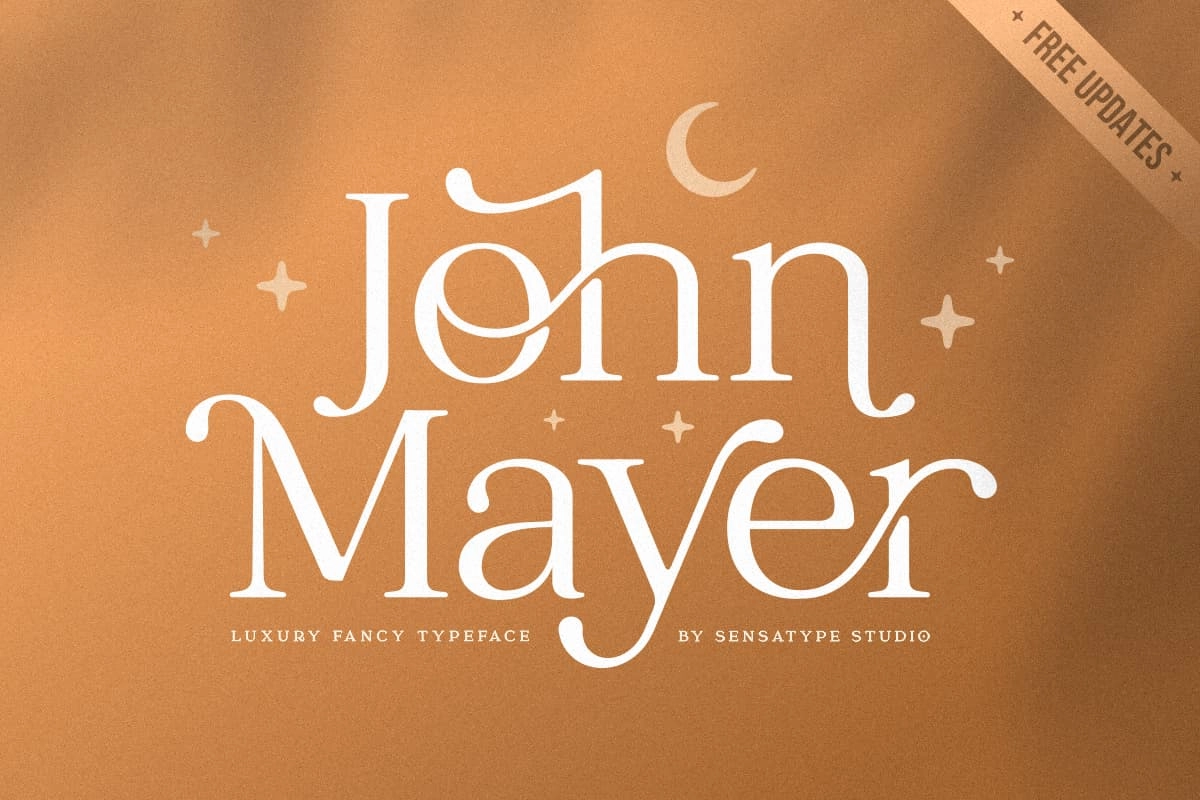
John Mayer is a refined serif font with a classic structure that feels timeless and dependable. It works especially well for pub menus, event posters, and restaurant promotions where you want elegance without losing readability.
Best for: pub promotions, Irish-themed menus, signage
Why it works: its serif structure gives it a heritage-driven tone that suits traditional St. Patrick’s Day visuals.
Catchy Mager
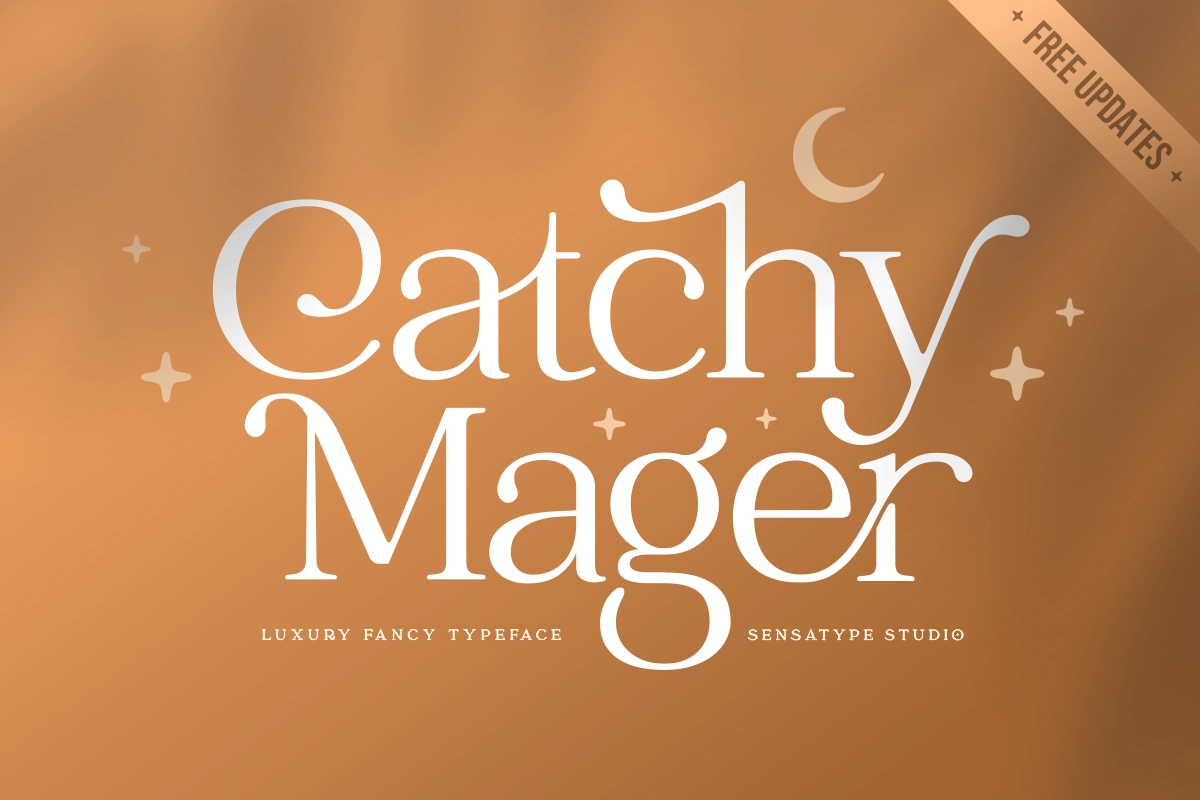
Catchy Mager is a lively handwritten script with a festive, friendly rhythm. It feels personal and welcoming, which makes it ideal for party invitations, greeting cards, and social media graphics.
Best for: invitations, Instagram posts, cards
Why it works: handwritten movement adds warmth and celebration.
Campaign Serif
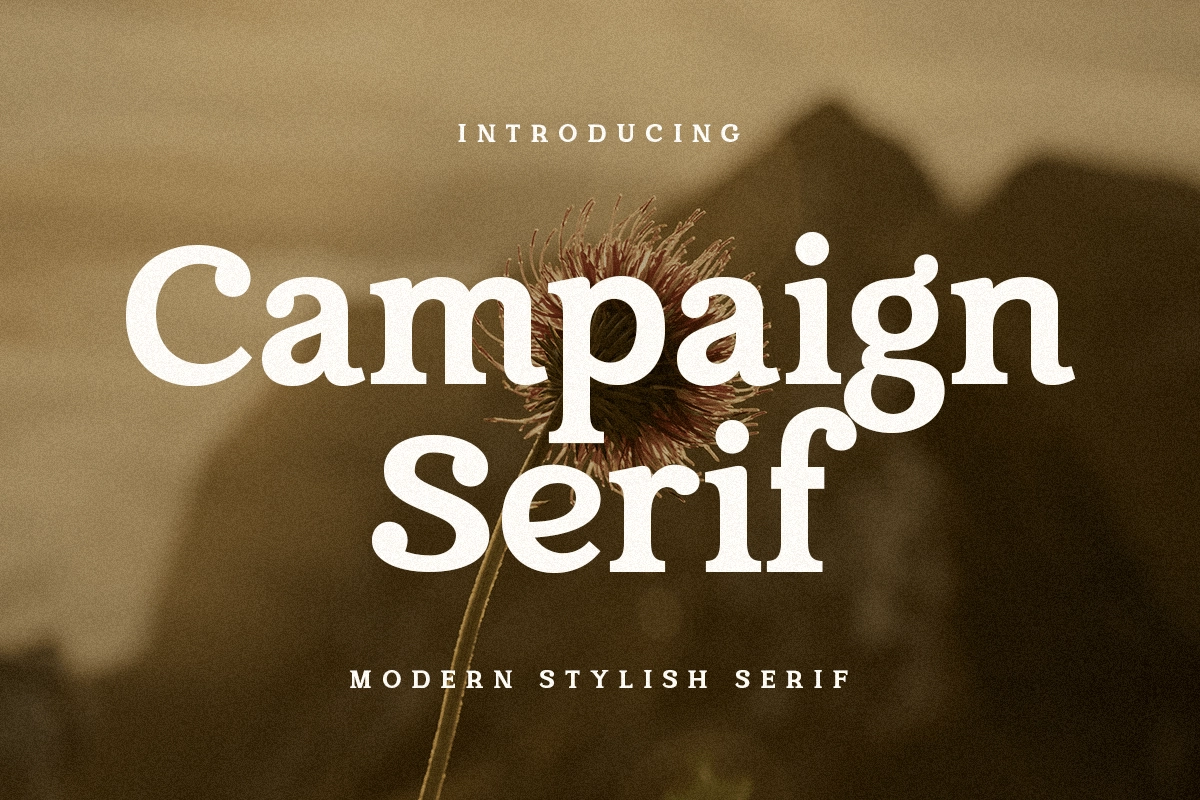
Campaign Serif brings vintage editorial charm and authority. It fits the rustic pub side of St. Patrick’s Day design especially well.
Best for: posters, menus, pub signage
Why it works: it feels traditional, readable, and grounded.
Valeska
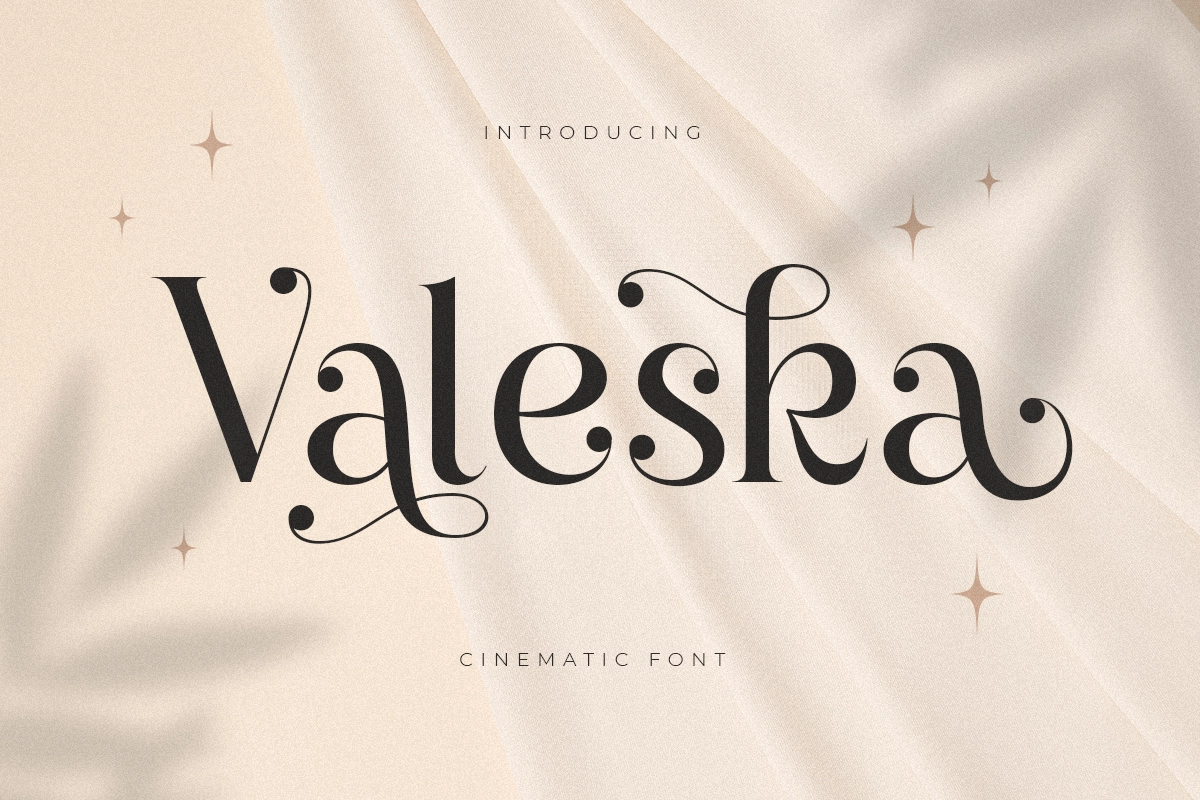
Valeska has a more polished and upscale tone. It is a strong choice for premium event branding or elegant St. Patrick’s Day invitations that lean more refined than playful.
Best for: upscale invitations, formal events, print designs
Why it works: graceful serif forms create a luxurious seasonal look.
Darling
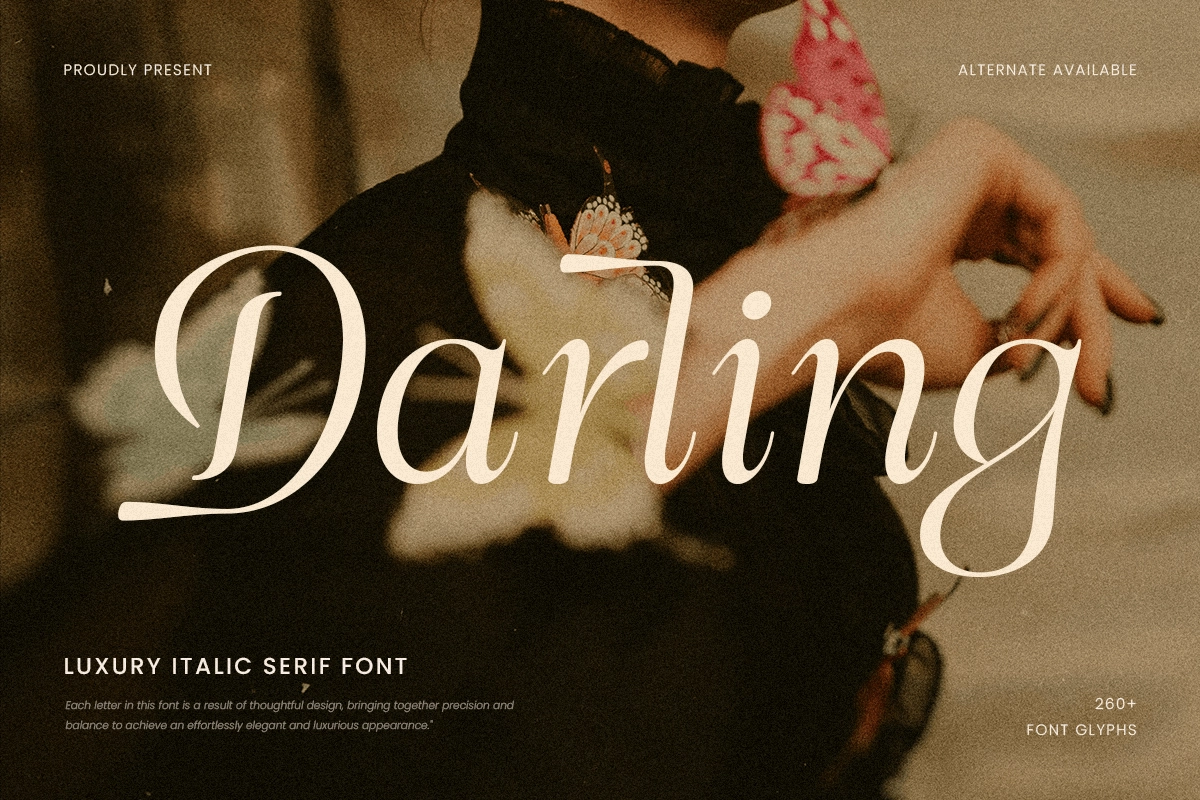
Darling adds softness and warmth. It suits greeting cards, decorative prints, and friendly announcements.
Best for: greeting cards, decorative layouts, invitations
Why it works: it creates a more intimate and personal tone.
Salute
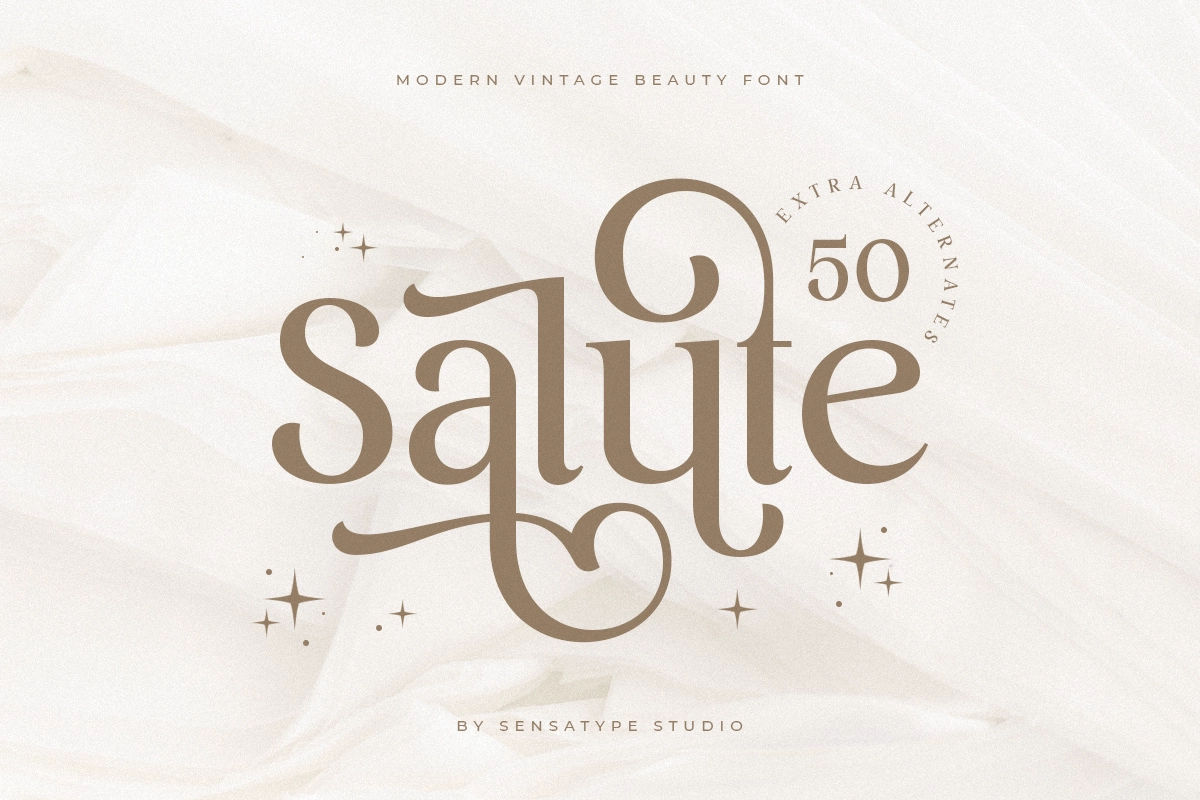
Salute has high visual energy and works best when you want a headline to feel lively and celebratory.
Best for: banners, social graphics, hero headlines
Why it works: its motion-packed style grabs attention quickly.
Wishful
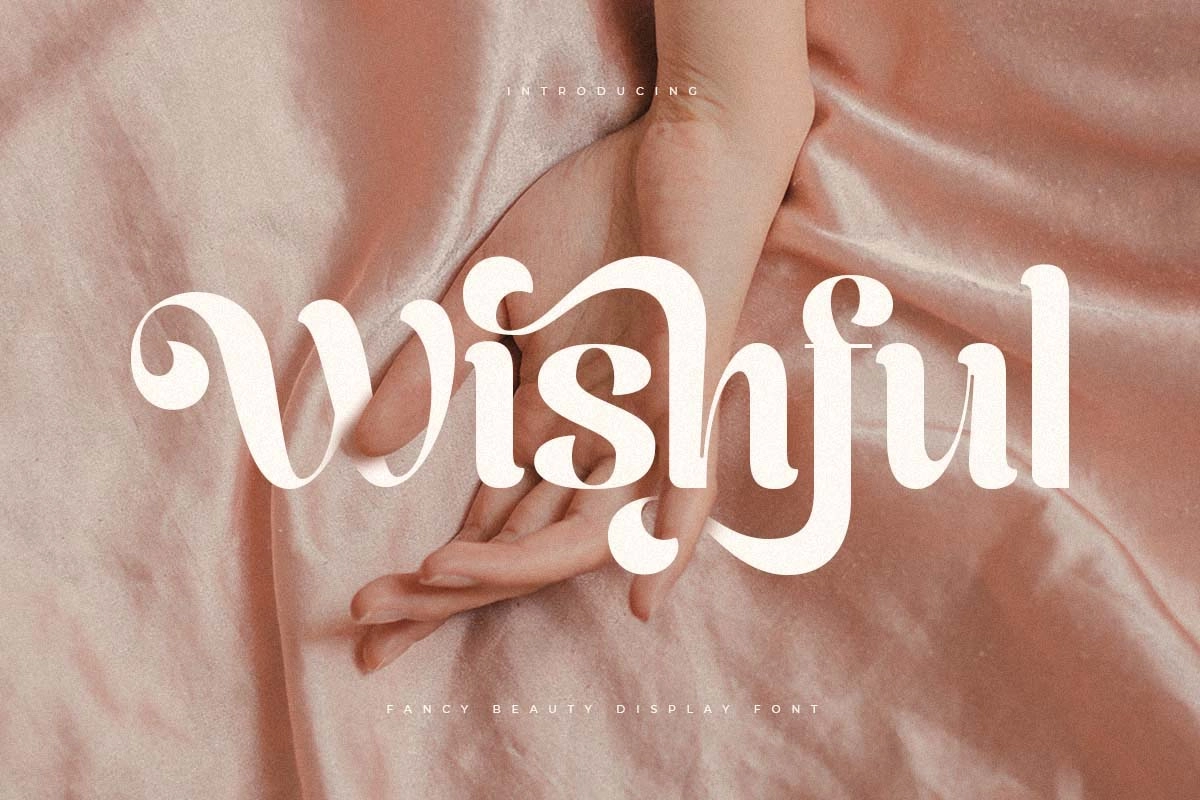
Wishful has a dreamy, whimsical personality that suits softer seasonal designs.
Best for: festive messaging, invitation headers, quote graphics
Why it works: it adds emotional charm without feeling too heavy.
Quinnie
Quinnie works well in decorative layouts where typography needs to carry personality.
Best for: quotes, layered compositions, social posts
If you use Canva’s native fonts, focus on festive serif, handwritten, and display options already inside the platform. If you want a more original look, upload premium fonts through Canva’s Brand Kit tools and build a more distinctive seasonal style. Either way, the winning formula stays the same: thoughtful typography, restrained pairing, and a holiday palette that feels festive without shouting from every shamrock in the room.